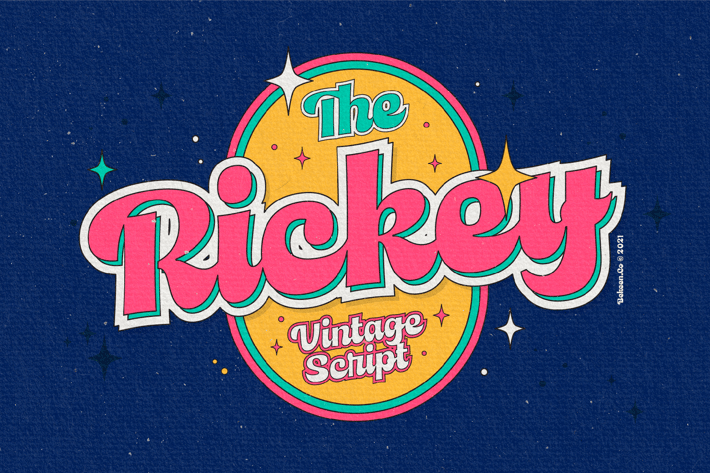
Vintage Bold Script Font
Looking for a cool font with a retro style? What you need is Rickey, which has a bold and retro look. Rickey will bring you to the 60s era where you could find cool posters, advertisements, and labels. This font is perfect for logos, badges, posters, labels, stickers, and more.